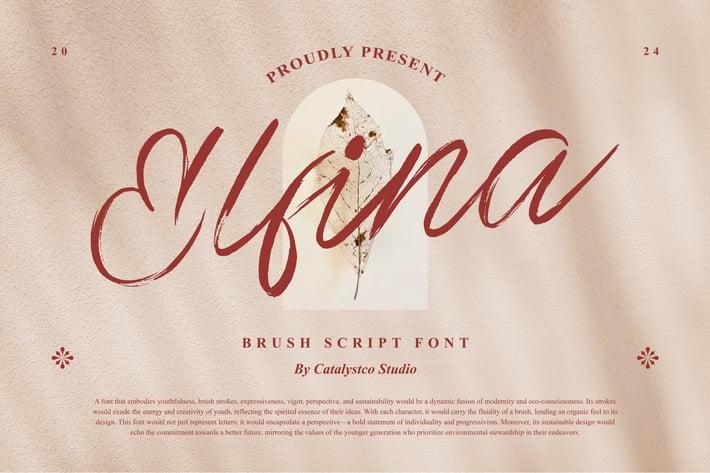
Elfina Brush Script Font
Hendritage Modern Script Font typeface excellent used for the manufacture quote text, logotype, header magazine, and many more.